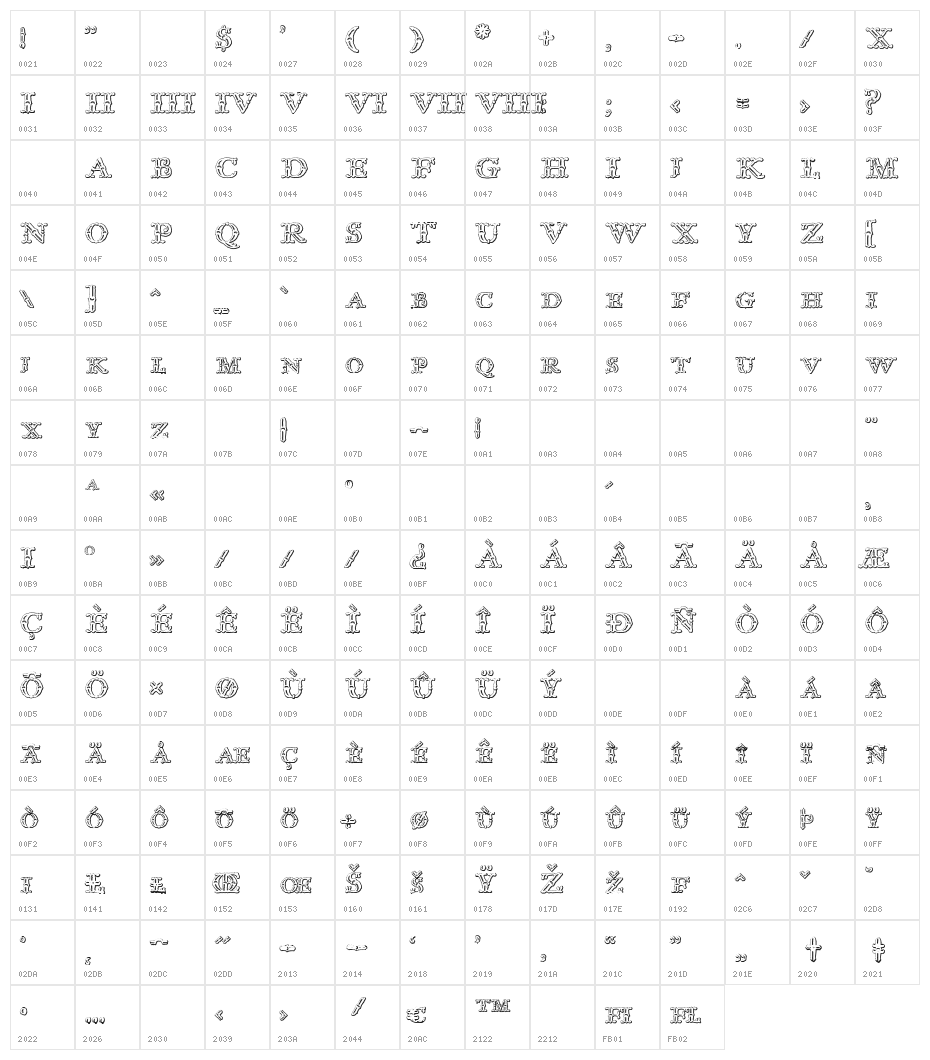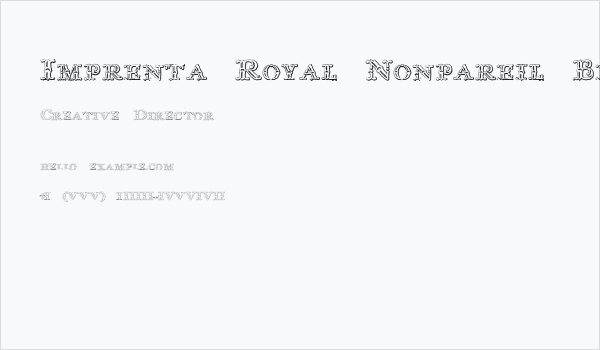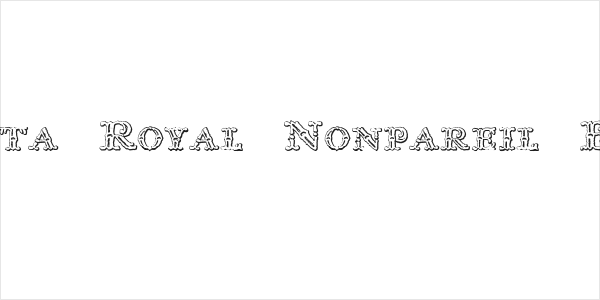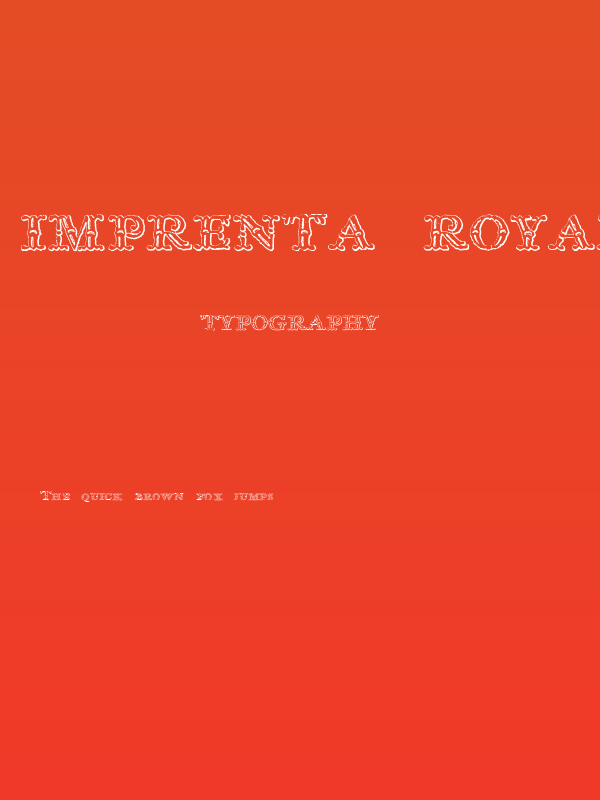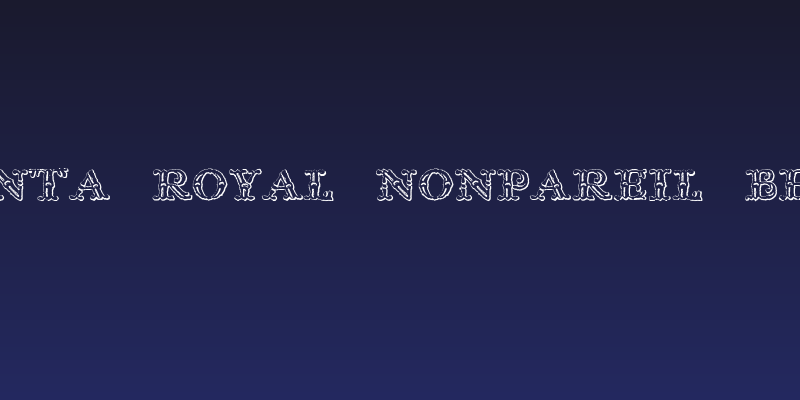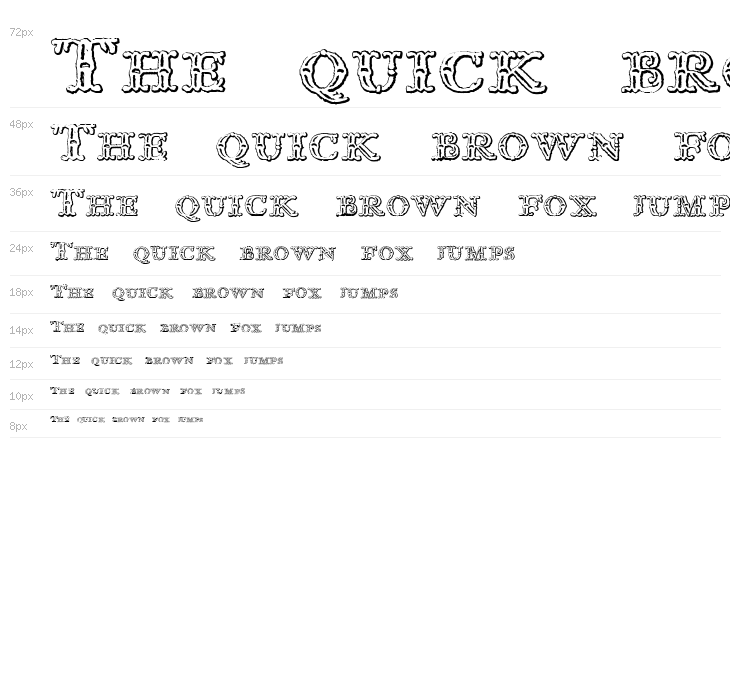
Imprenta Royal Nonpareil Beveled Font
Imprenta Royal Nonpareil Beveled Description
This font features a distinctive beveled style, characterized by its ornate and intricate detailing. Each letter is designed with a three-dimensional effect, giving it a carved appearance that stands out. The edges are sharp and well-defined, adding to the decorative nature of the typeface. The uppercase letters are bold and commanding, while the lowercase letters maintain the same level of detail and complexity. The numbers and special characters are equally ornate, making this font suitable for projects that require a touch of elegance and sophistication. The overall look is reminiscent of vintage or classical design, making it ideal for use in formal invitations, certificates, or branding that seeks to convey a sense of tradition and refinement.
| Use Case | Headlines, Logos, Decorative text |
| Proposed Projects | Ideal for wedding invitations, certificates, vintage-themed branding, and decorative signage. |